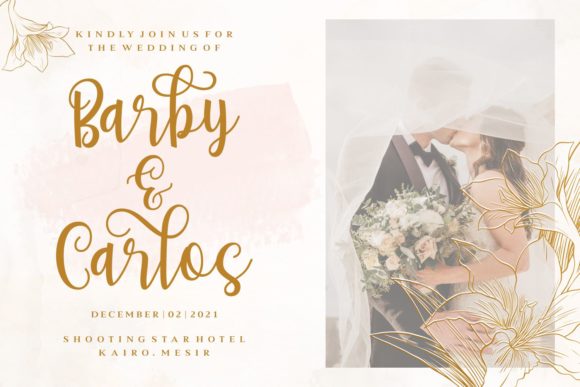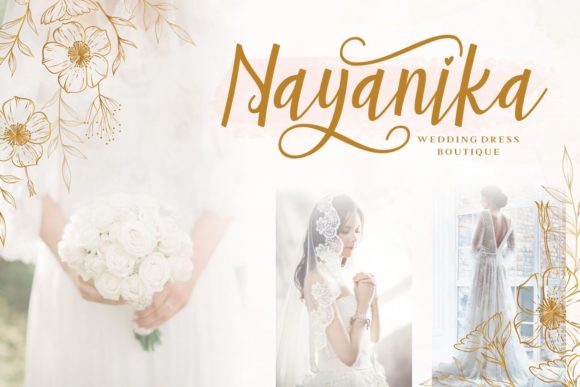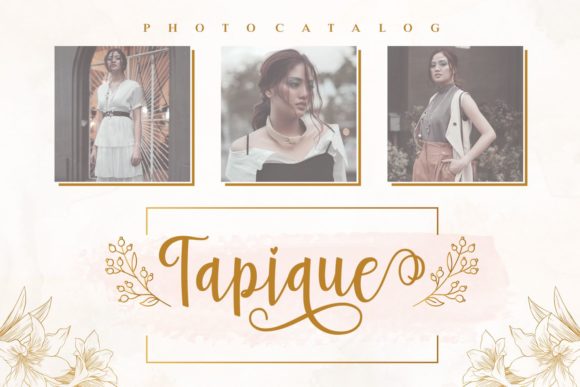
Introducing Felicity Agatha Font: Elevate Your Designs with Elegance and Sophistication
In the world of typography, a well-crafted font can make all the difference in transforming a design from ordinary to extraordinary. For those seeking a unique and elegant handwritten font, look no further than Felicity Agatha. This beautiful font is perfect for designers and crafters who want to add a touch of personalized style to their projects, making it ideal for a variety of applications, including wedding invitations, thank you cards, weddings, greeting cards, logos, and more.
The Beauty of Felicity Agatha
Felicity Agatha is a one-of-a-kind, handwritten font that exudes elegance and sophistication. Its flowing lines and delicate curves make it a versatile choice for various design projects. Whether you’re creating a romantic wedding invitation, a heartfelt thank you card, or a professional logo, Felicity Agatha is sure to impress. The font’s unique charm and character will add a personal touch to your designs, setting them apart from the rest.
One of the standout features of Felicity Agatha is its PUA (Private Use Area) encoding. This means that you can easily access all of the font’s glyphs and swashes, giving you greater flexibility and creative control over your designs. With PUA encoding, you can effortlessly navigate the font’s extensive character set, including alternates, ligatures, and ornaments, to create stunning and intricate designs.
Felicity Agatha is a dream font for designers and crafters who value uniqueness and elegance. Whether you’re a professional designer or a DIY enthusiast, this font is perfect for:
• Wedding invitations and stationery: Add a touch of romance and sophistication to your wedding designs.
• Thank you cards and greeting cards: Create heartfelt and personalized cards for special occasions.
• Logos and branding: Use Felicity Agatha to create a distinctive and memorable brand identity.
• Paper crafting: Add a elegant touch to your paper crafts, such as scrapbooking and card making.
Tips for Using Felicity Agatha
To get the most out of Felicity Agatha, here are some tips for using the font:
• Experiment with different sizes and colors to add visual interest to your designs.
• Use the font’s glyphs and swashes to create intricate and detailed designs.
• Pair Felicity Agatha with other fonts to create a unique and harmonious typography combination.
• Take advantage of the font’s PUA encoding to access a wide range of characters and alternates.
Font Name Felicity Agatha Font
Author Rifki (7ntypes)
Felicity Agatha is a stunning handwritten font that is sure to elevate your designs to new heights. With its elegant and sophisticated charm, PUA encoding, and versatility, this font is perfect for designers and crafters seeking a unique and personalized style. Whether you’re creating wedding invitations, logos, or paper crafts, Felicity Agatha is the perfect choice for adding a touch of elegance and sophistication to your projects.